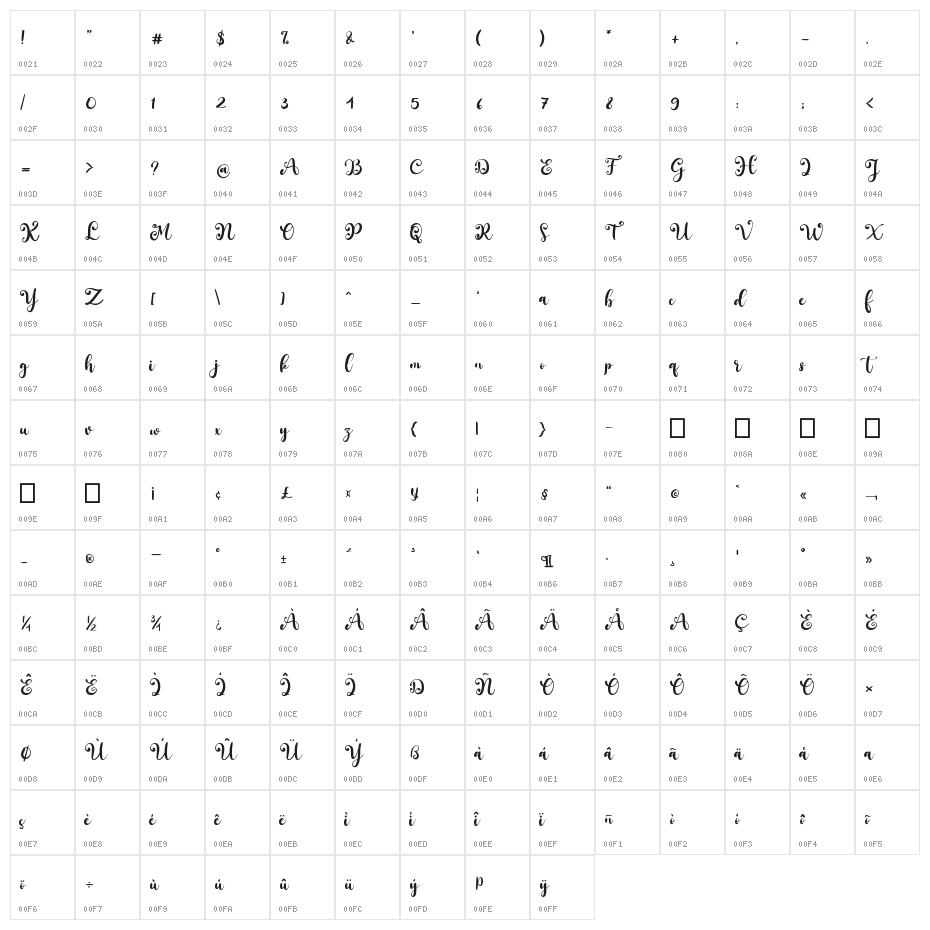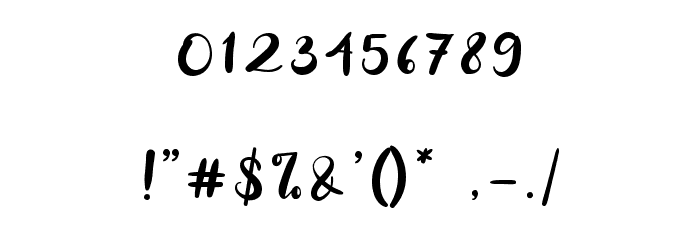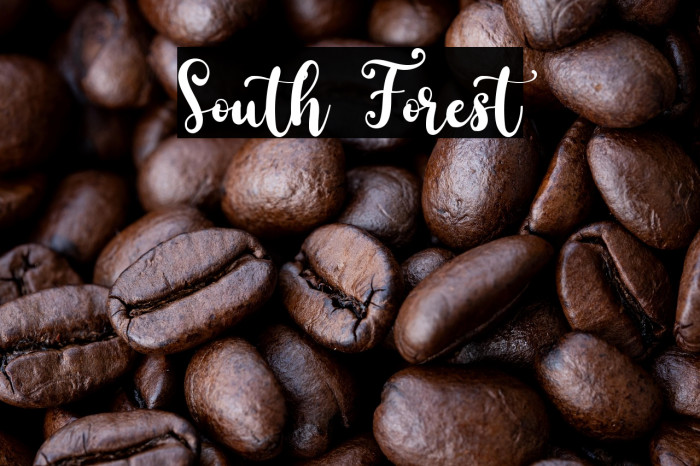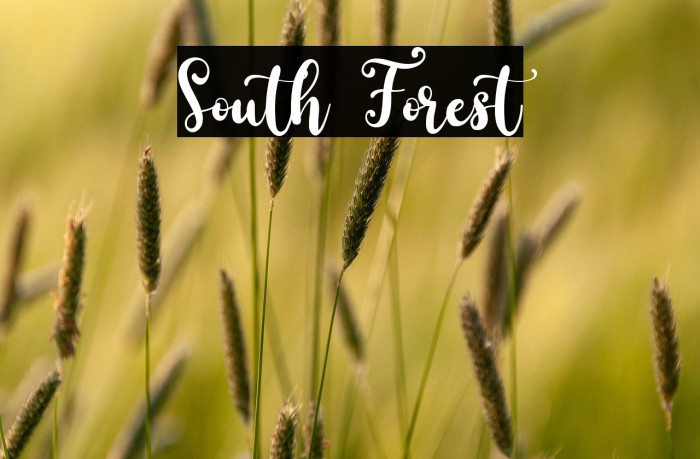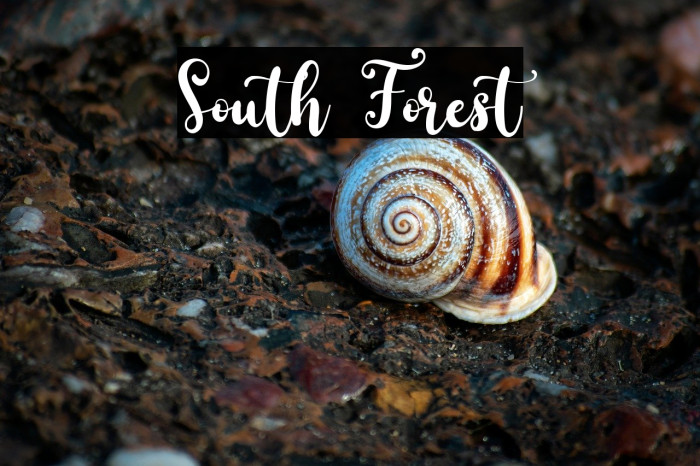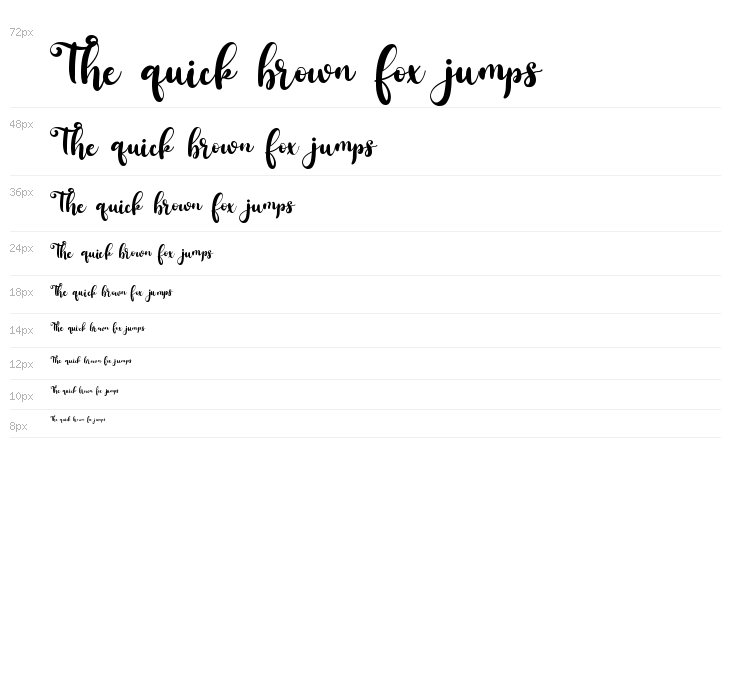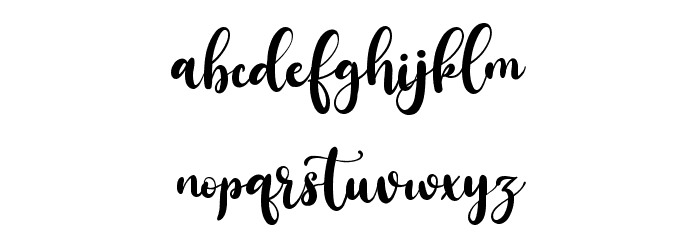
South Forest Font
South Forest Description
This font features an elegant and flowing script style, characterized by its smooth, cursive strokes and decorative flourishes. The uppercase letters are particularly ornate, with loops and swirls that add a touch of sophistication and charm. The lowercase letters maintain a consistent flow, enhancing readability while preserving the artistic flair. Numbers and special characters are designed to match the overall aesthetic, ensuring a cohesive look across all text elements. This font exudes a sense of elegance and creativity, making it ideal for projects that require a personal and artistic touch.